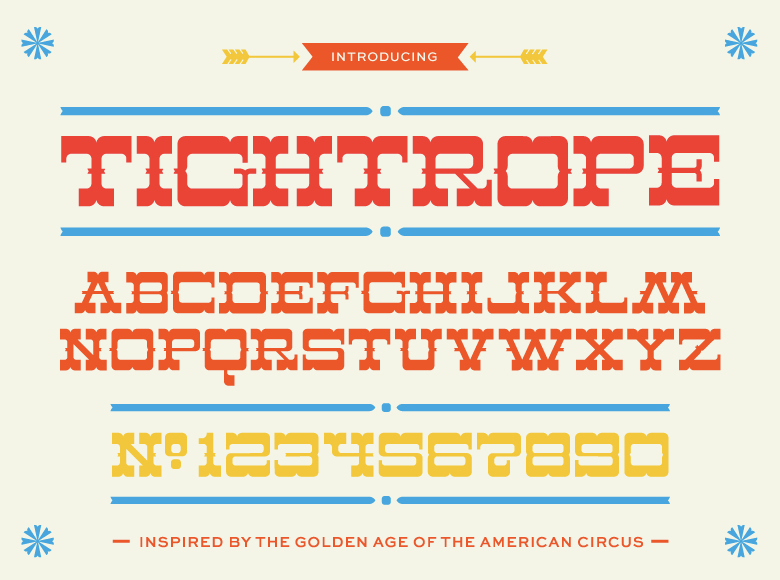
A handmade display font inspired by the Golden Age of the Circus
Featuring heavy serifs and subtle curves, it recalls old-fashioned print styles found on posters and broadsides promoting traveling circus troupes.
Prior to WWI and talking pictures, circuses were a national pastime crossing the country coast to coast by train.